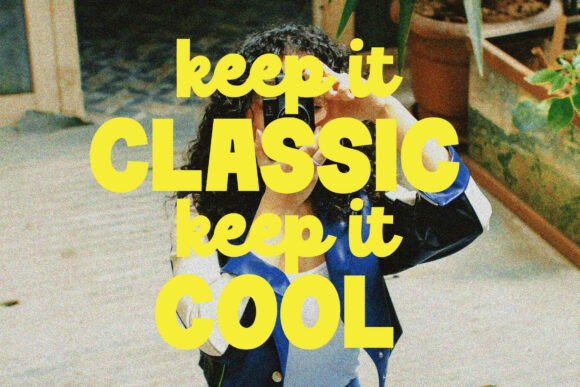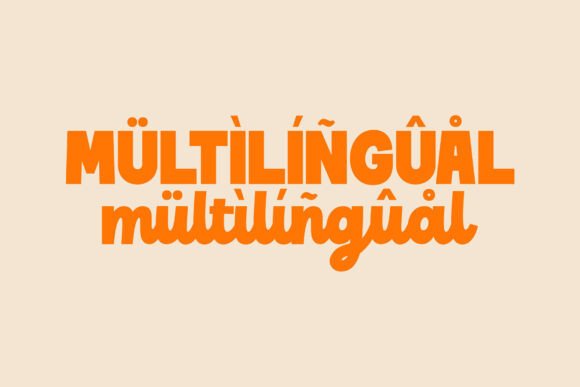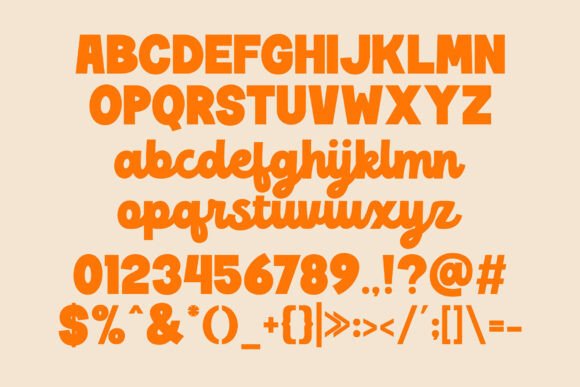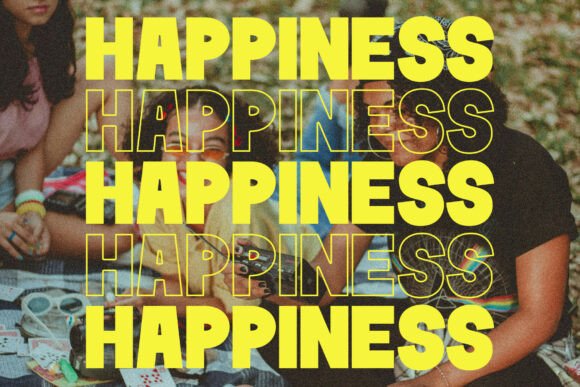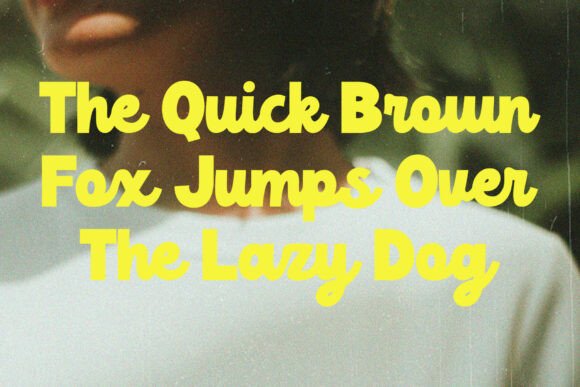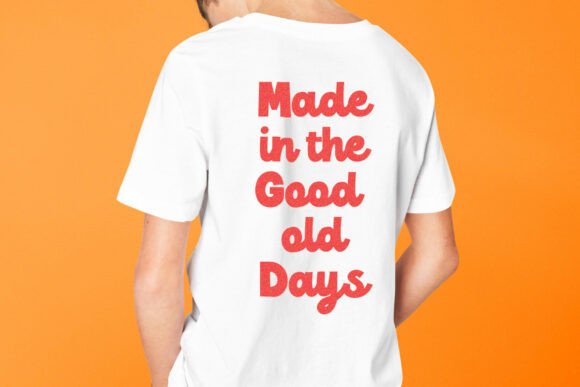
Introduction to Noemia Dreams Font Font
Fonts play a crucial role in design, and the Noemia Dreams Font font is a typeface that brings both character and versatility to any project. Whether you’re working on a branding project, a website, or a print design, the Noemia Dreams Font font offers a unique style that can elevate your work.
Capture the soulful essence of the 1970s while maintaining a crisp, contemporary edge with Noèmia Dreams.
This masterfully paired font duo features a bold, geometric Sans Serif and a fluid, rhythmic Script, designed to work in perfect harmony Noèmia Dreams isn’t just a font; it’s a nostalgic journey, channeling the warm, “analog” vibes of vintage vinyl covers and boutique retro branding into a professional toolkit for today’s creators.
Key Features of Noemia Dreams Font Font
Why Choose Noemia Dreams Font Font?
The Noemia Dreams Font font is more than just a typeface – it’s a design tool that helps you communicate your message with style and clarity. Its unique character set and versatile design make it suitable for a wide range of applications, from elegant invitations to bold headlines.
With its carefully crafted letterforms and balanced proportions, the Noemia Dreams Font font ensures readability and visual appeal across all mediums.
What makes Noemia Dreams Font font special?
The Noemia Dreams Font font stands out with its unique design, exceptional readability, and versatility across various design applications.